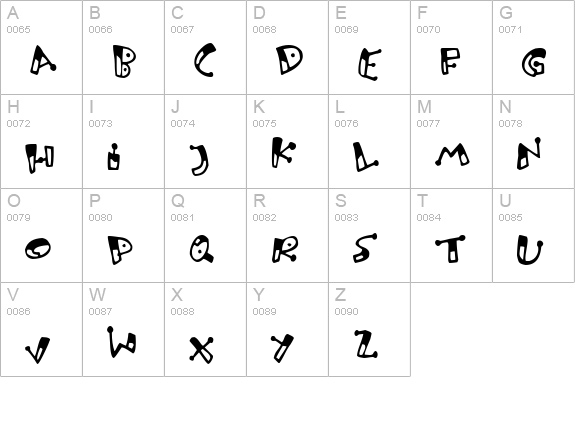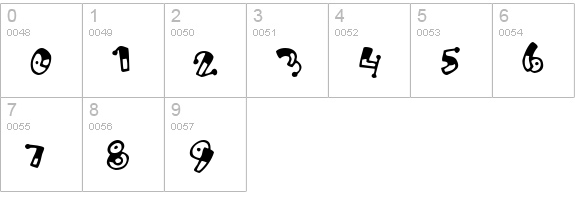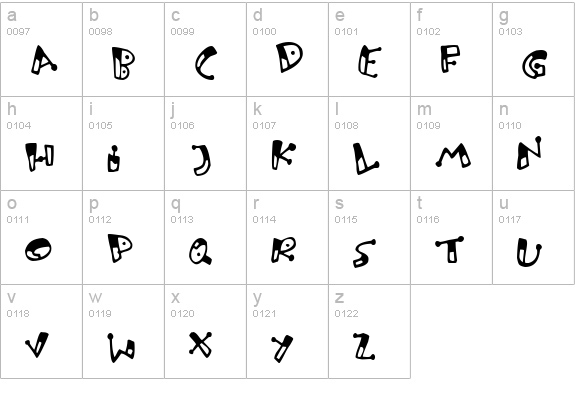
Bungnipper Font Details
Introducing Bungnipper font, a modern and stylish typeface that exudes elegance and sophistication. With its sleek lines and contemporary feel, Bungnipper is the perfect choice for a wide range of design projects, from branding to editorial design and everything in between. What sets Bungnipper font apart is not only its striking design but also the fact that it is available for free. That's right, you can download this stunning font at FontsMarket.com without having to spend a dime. Whether you're a seasoned designer looking to add a fresh new font to your collection or a beginner searching for the perfect typeface for your next project, Bungnipper is sure to impress. With its versatility and timeless appeal, Bungnipper font is a must-have for any designer seeking to elevate their work to the next level. Download it today and see for yourself the impact that this beautiful font can have on your designs.